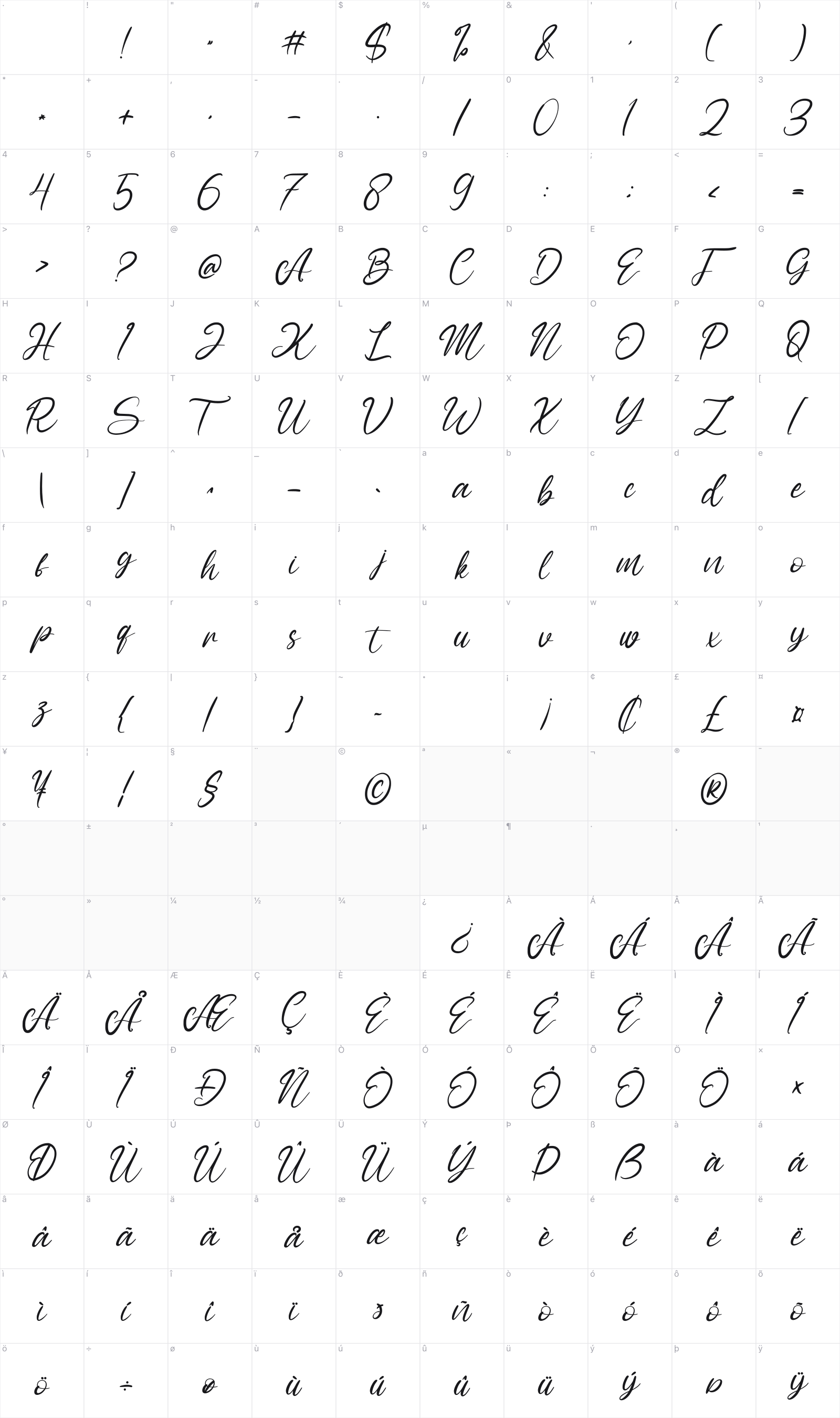
Arttemay
Arttemay is a flowing casual script with generous loops and graceful connected strokes that feel natural and handwritten. Moderate stroke contrast between thick downstrokes and hairline upstrokes gives it a calligraphic quality without the stiffness of formal penmanship. It works well at large sizes for logos, wedding stationery, and lifestyle branding.